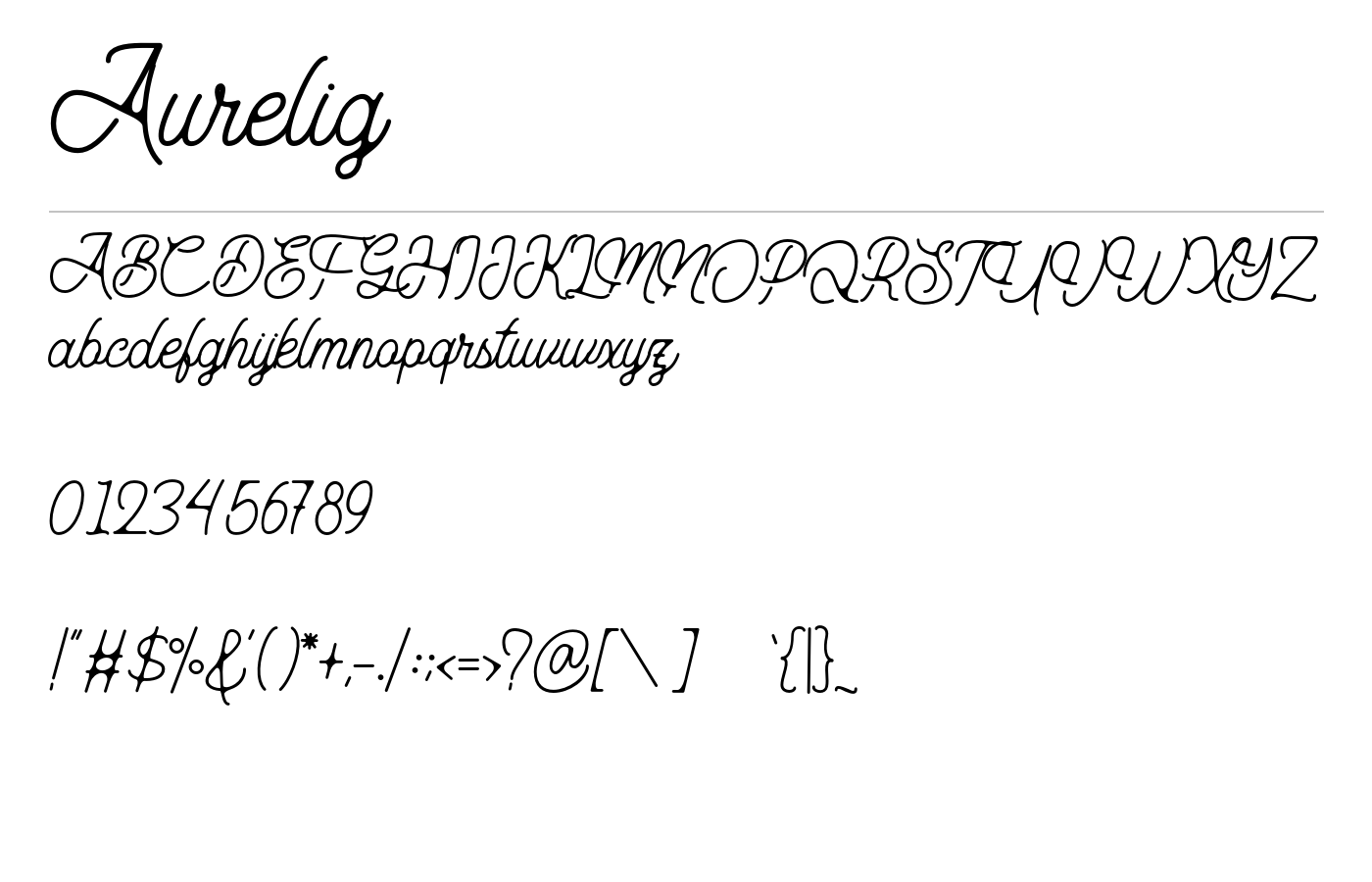
Aurelig is an elegant, handwritten script font with a delicate and flowing style that feels both sophisticated and inviting. Its slender strokes, graceful curves, and slightly condensed letterforms make it perfect for invitations, branding, and editorial projects that seek a refined, personal touch. This font shines in applications where a stylish, yet approachable look is desired.
Aurelig Font
About Aurelig Font